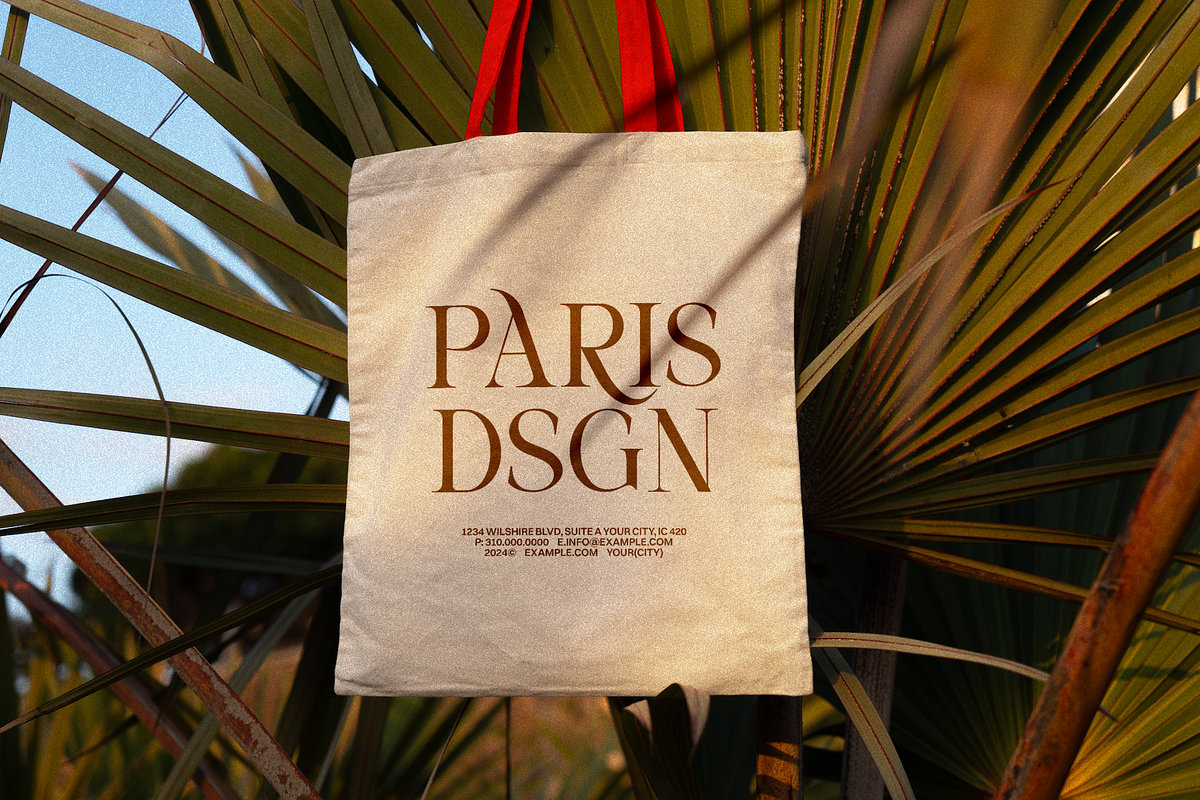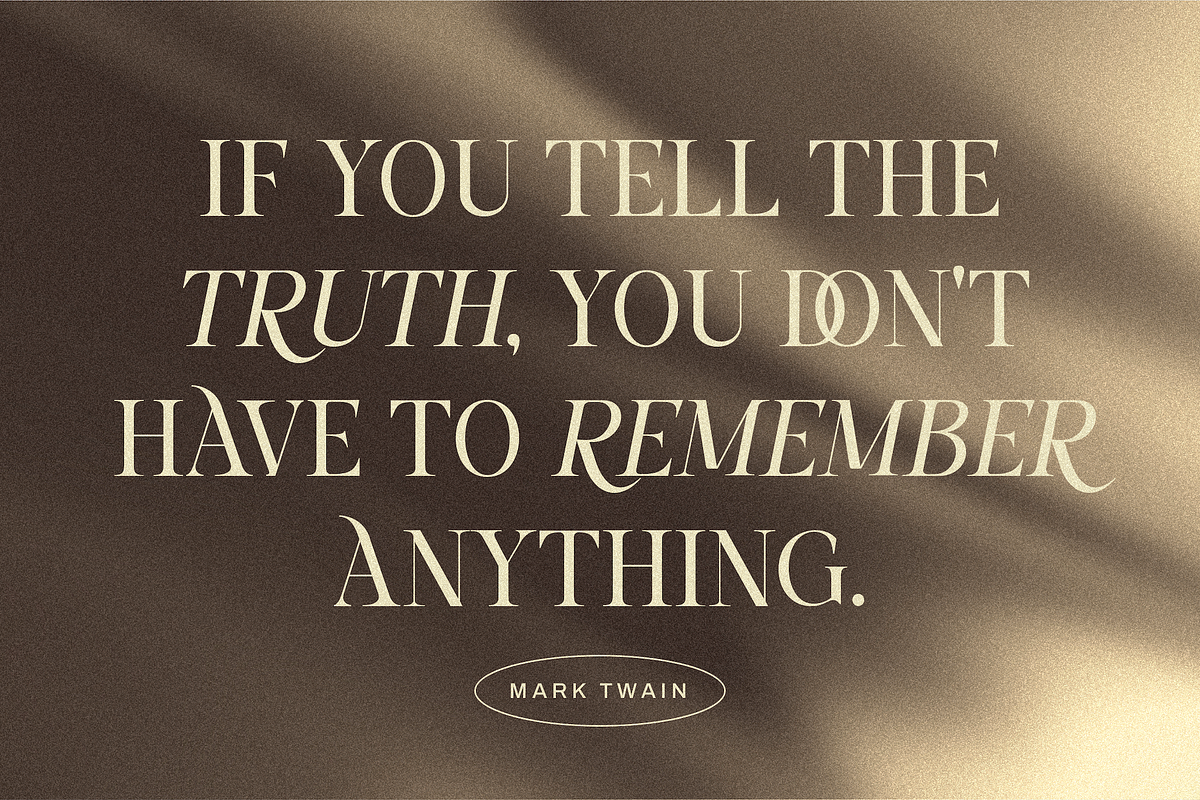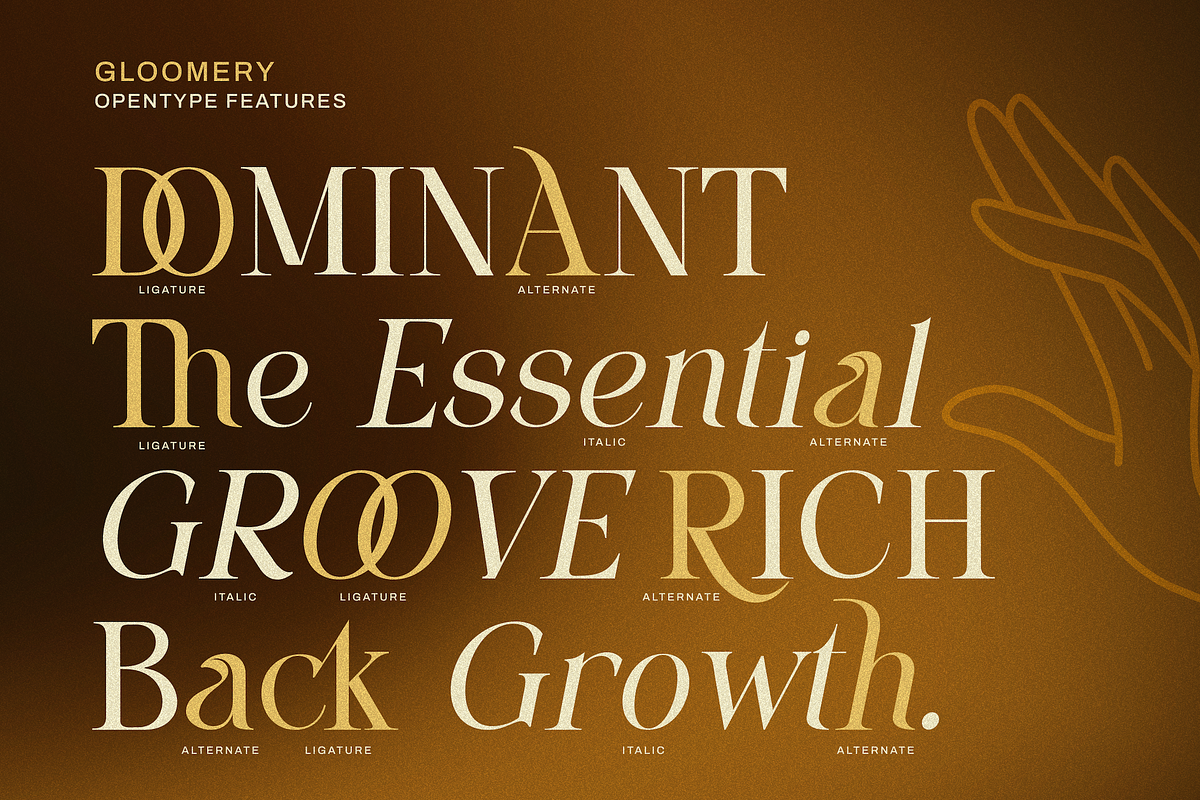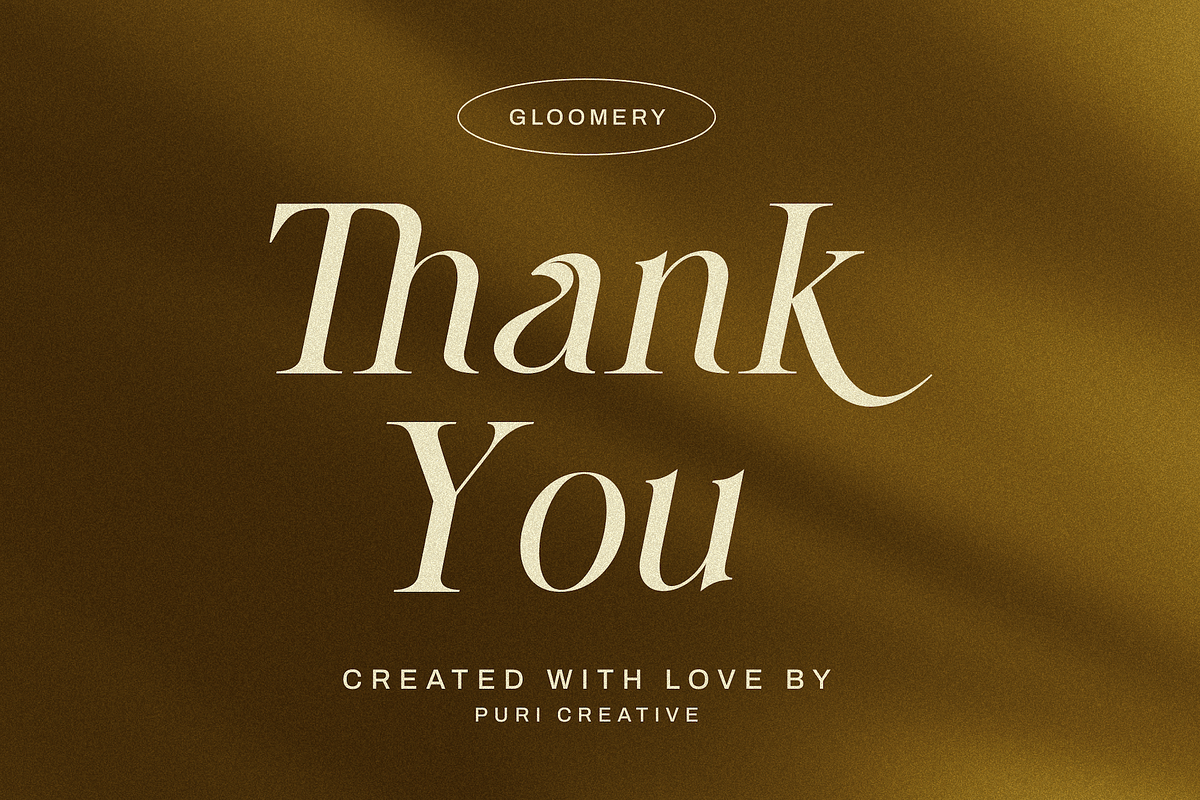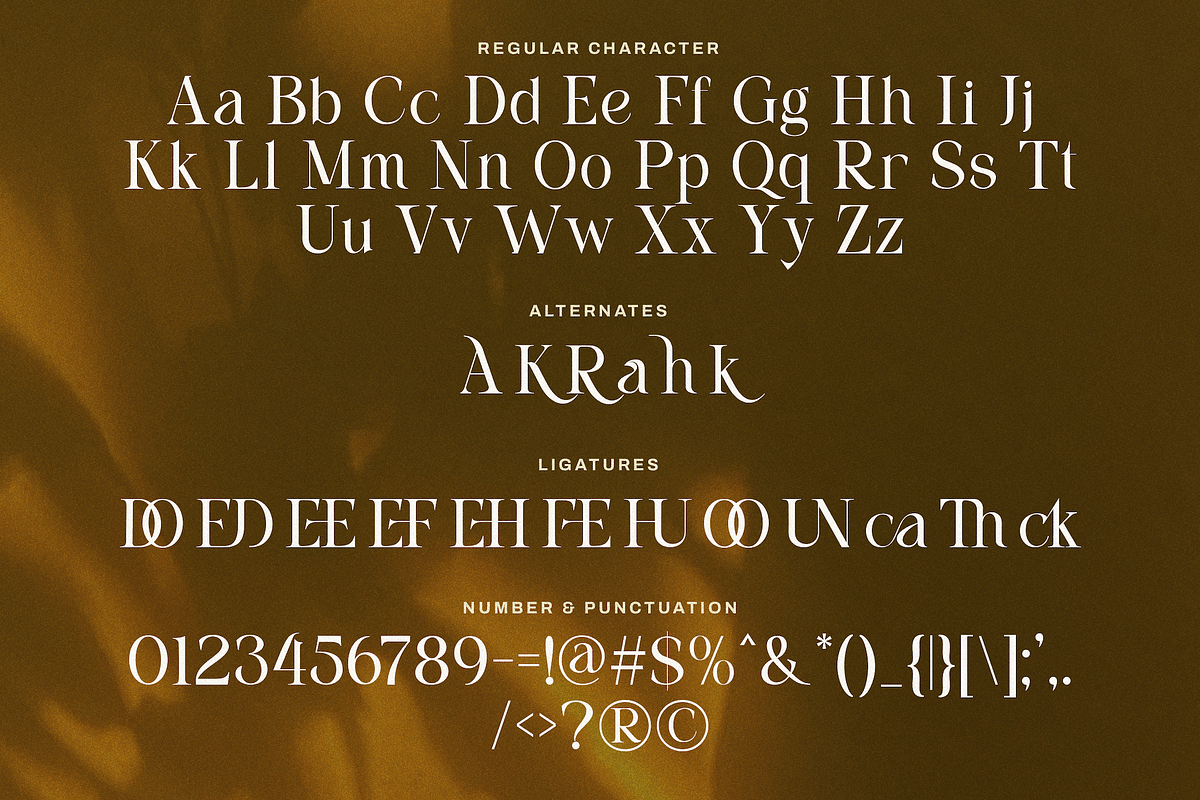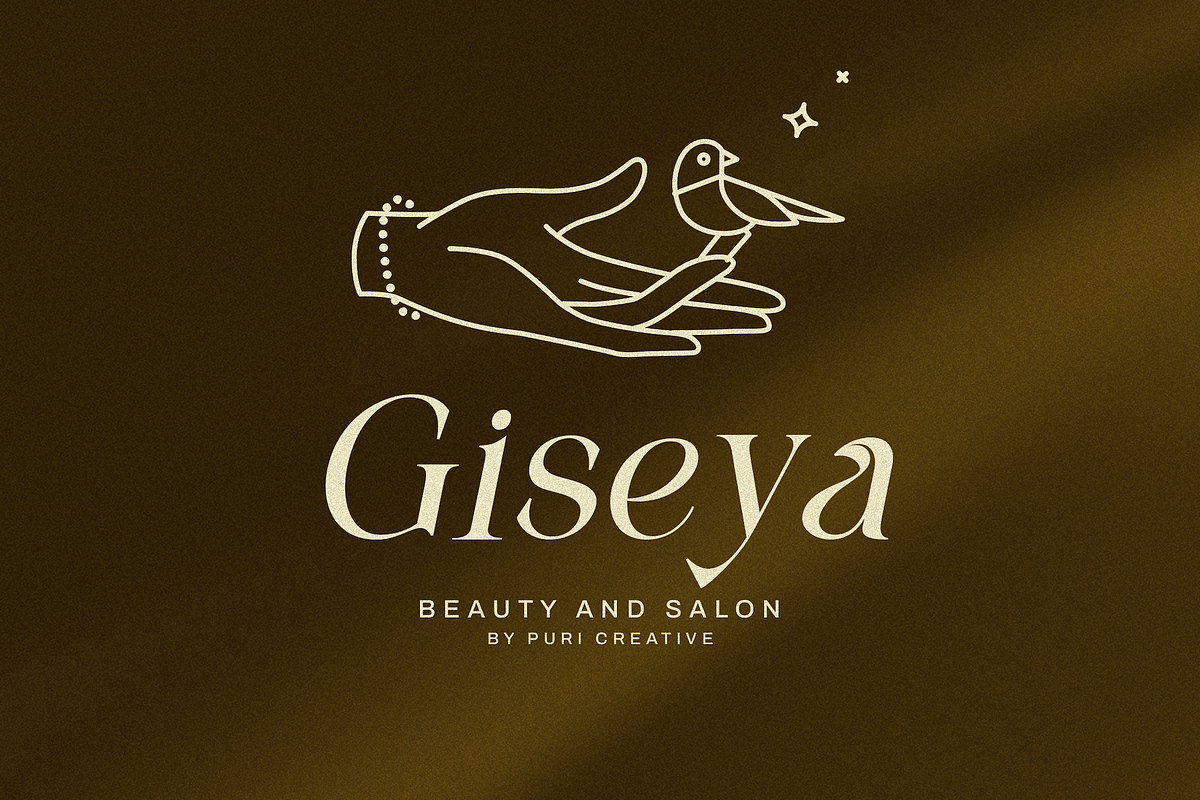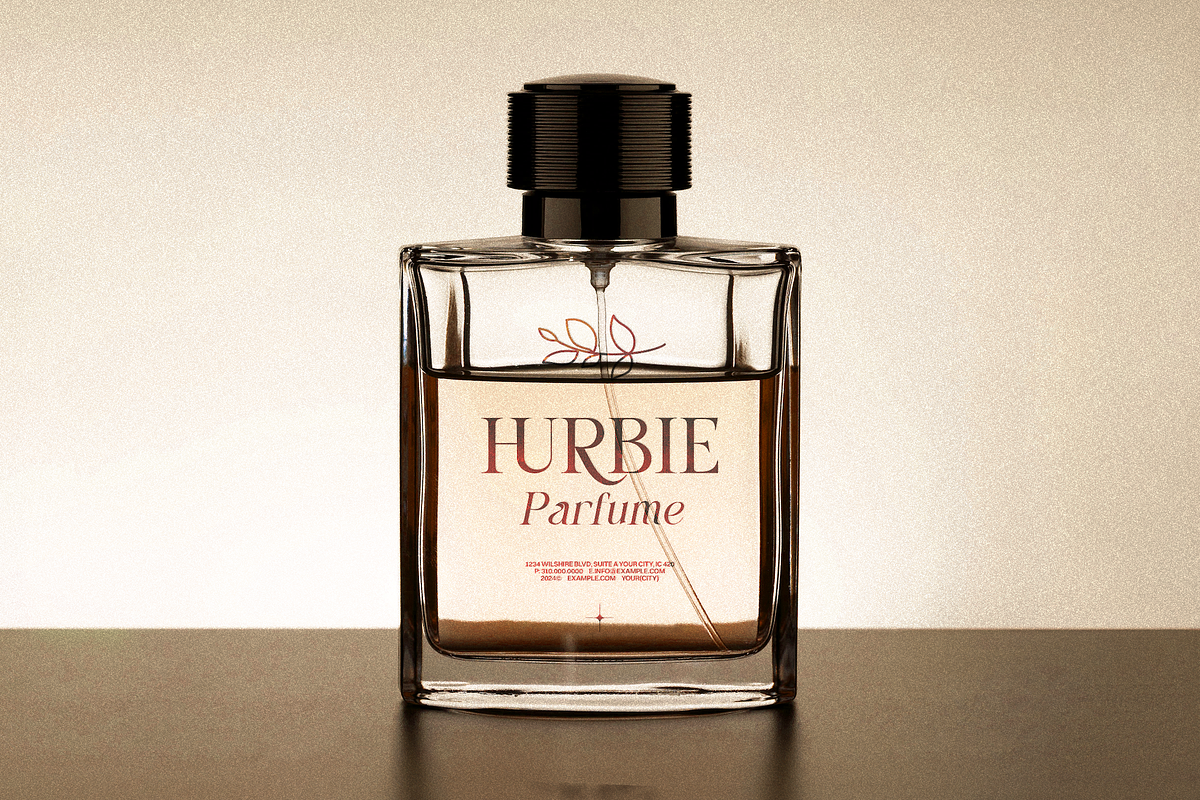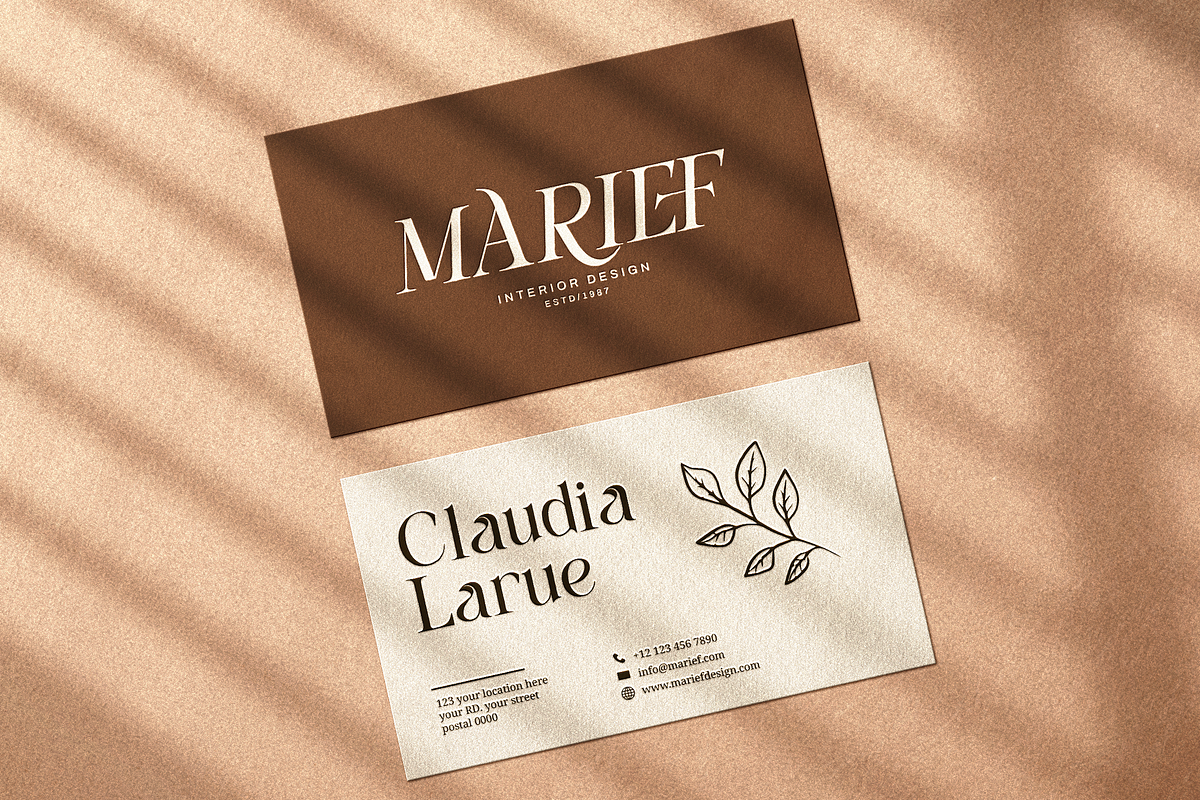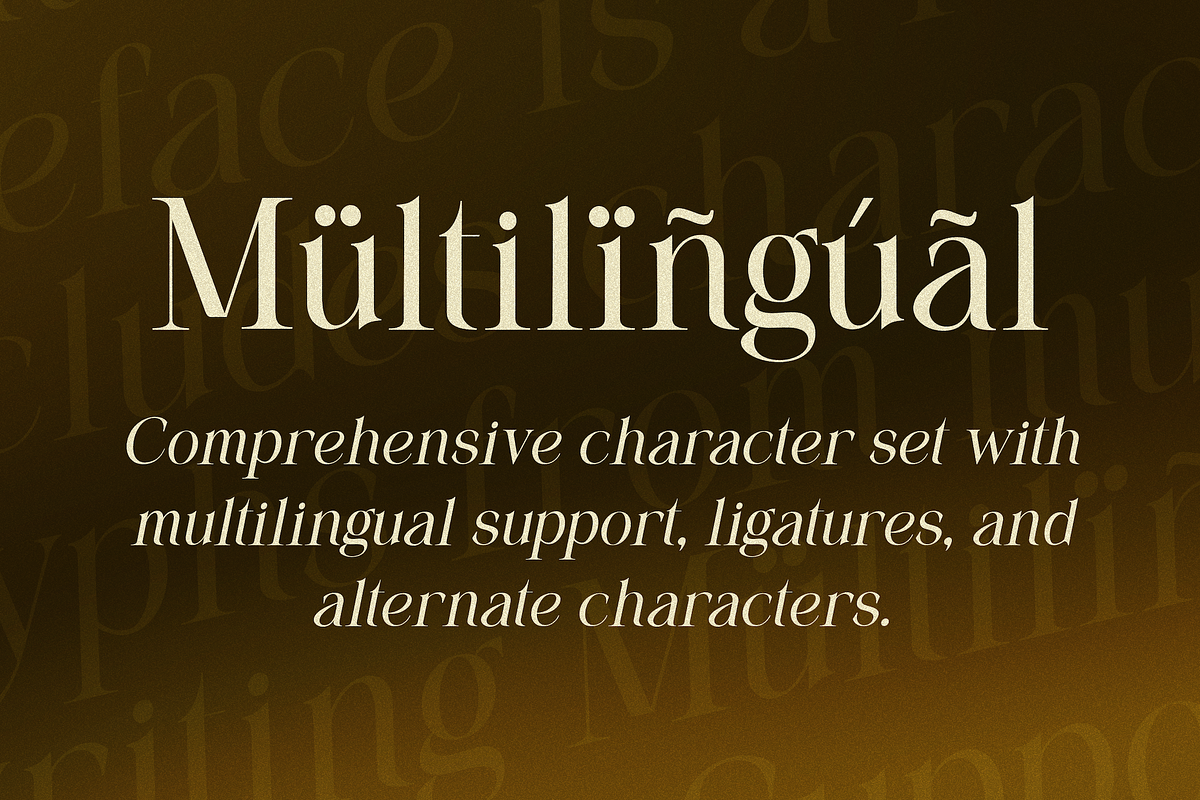
Gloomery - Beauty Luxury Serif Font
Gloomery is a luxury serif font crafted to embody timeless sophistication and refined beauty. With both Regular and Italic styles, it balances classic elegance with a contemporary edge. Each letterform features high contrast strokes and graceful curves, making it ideal for upscale branding, editorial designs, and stylish logos. This font is PUA encoded, which means you can access all of the glyphs with ease!